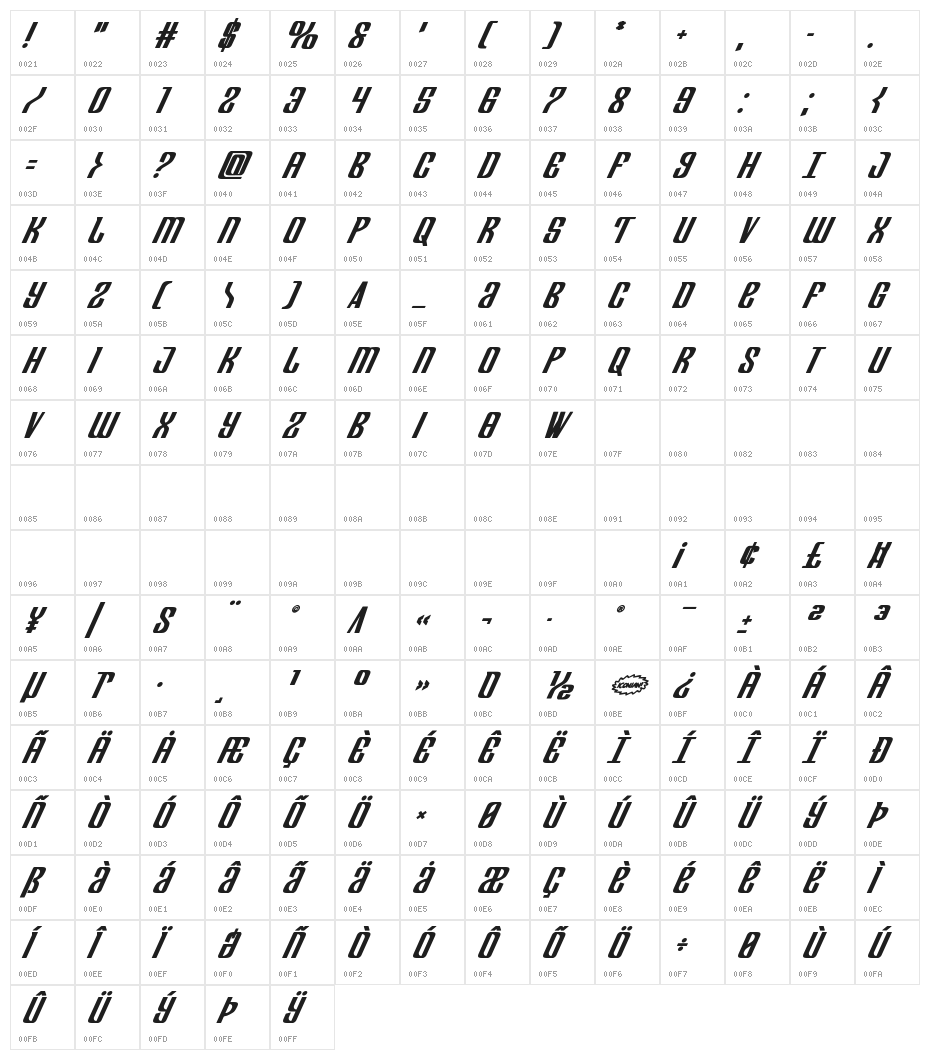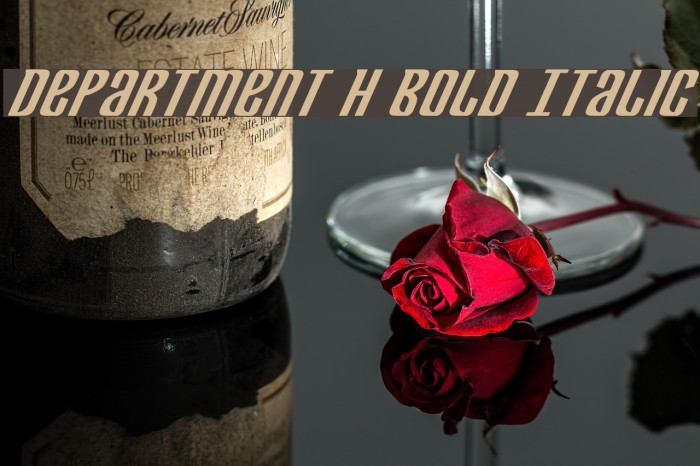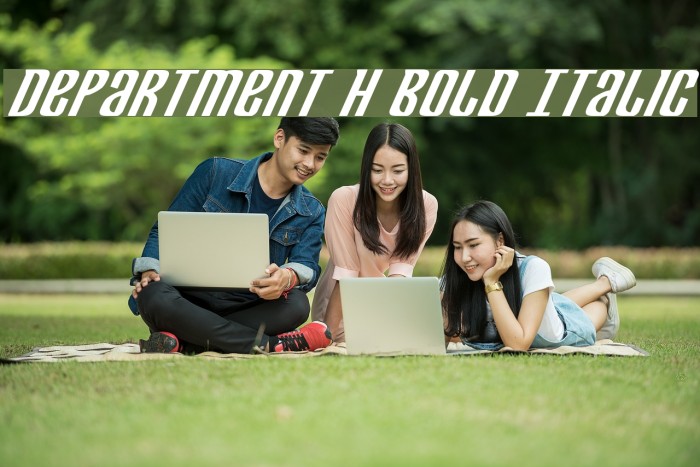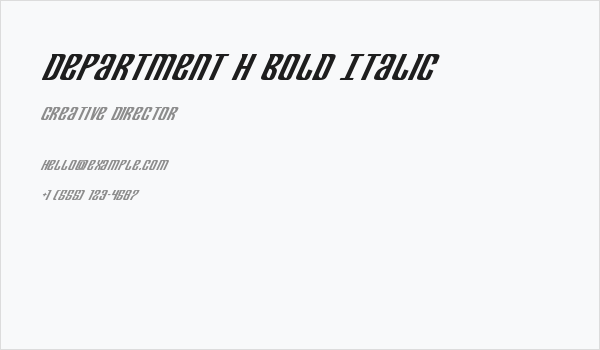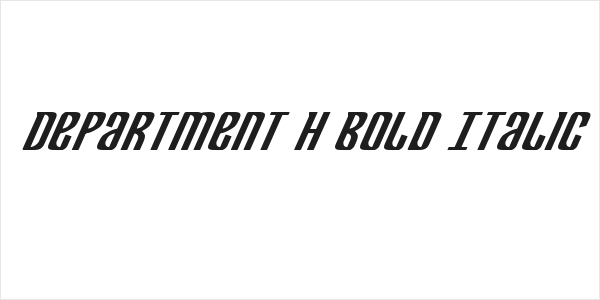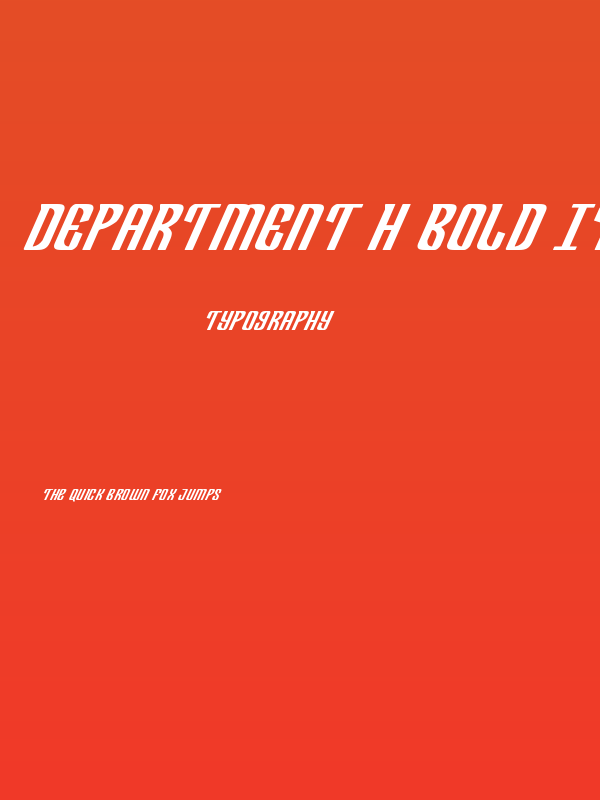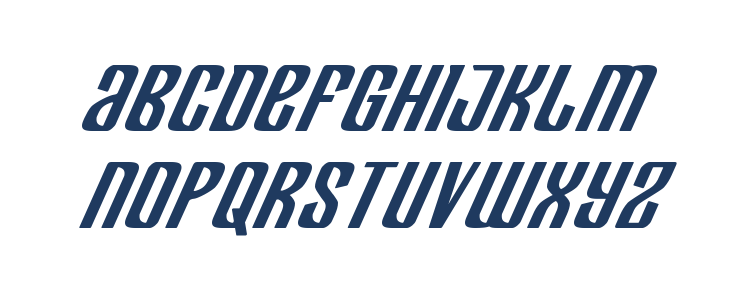
Department H Bold Italic Font
Department H Bold Italic Description
This font features a bold and italicized style with a modern and dynamic appearance. The characters are slanted, giving a sense of movement and energy. The strokes are thick, providing a strong visual impact, while the overall design maintains a sleek and streamlined look. The uppercase and lowercase letters are consistent in style, with sharp angles and clean lines. Numbers and special characters follow the same bold and italicized theme, ensuring uniformity across all glyphs. This font is ideal for projects that require a bold statement and a contemporary feel.
| Proposed Projects | Ideal for sports branding, dynamic posters, modern advertising, and eye-catching headlines. |